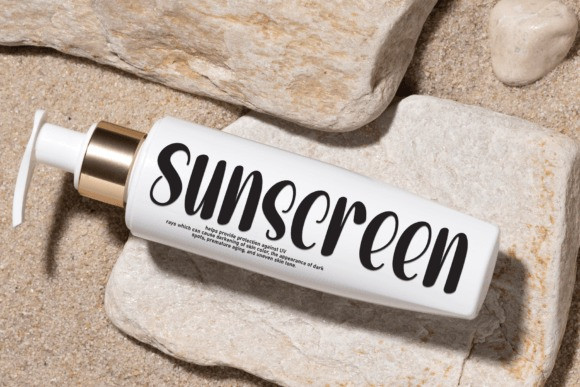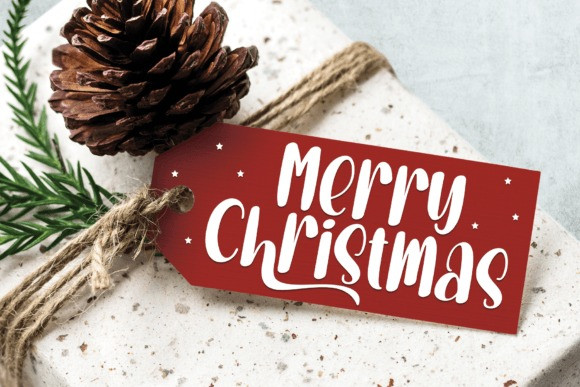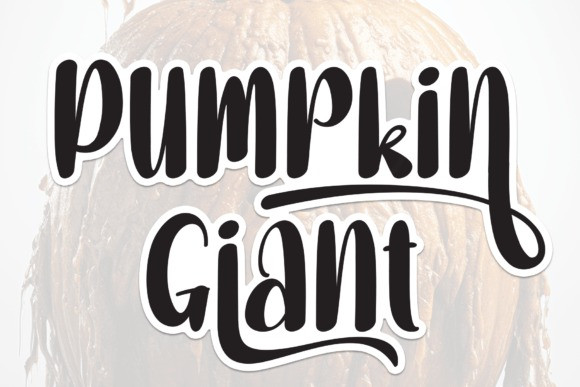
Pumpkin Giant Font
Pumpkin Giant Font is a sweet and friendly handwritten display font. Cute and fun, this font is ideal for writing wedding invitations, cards, or any other design that might need a fun touch!